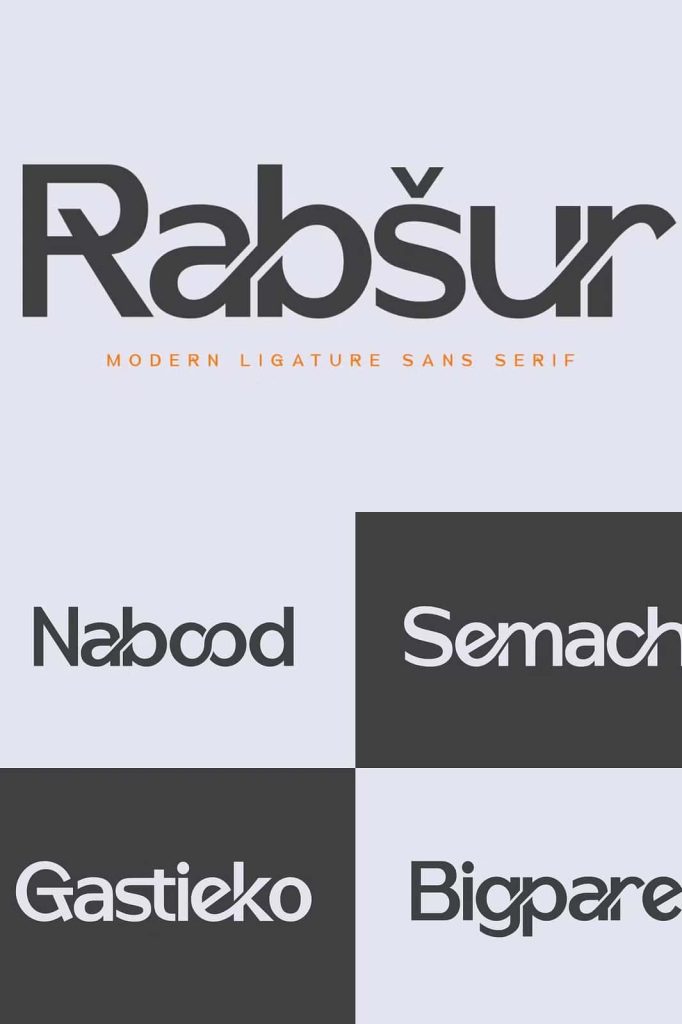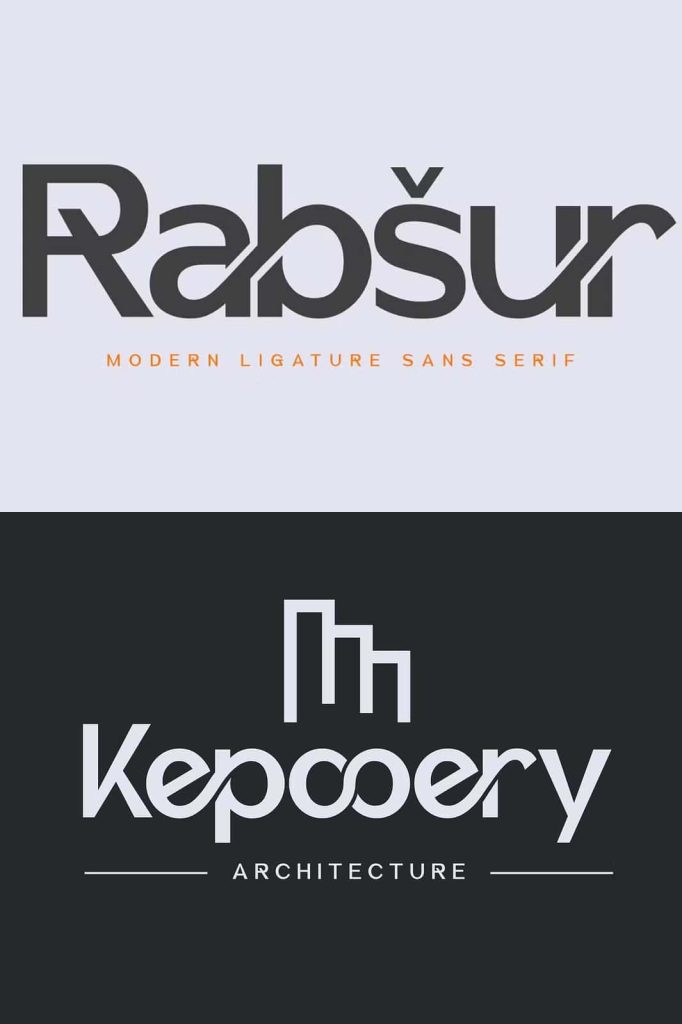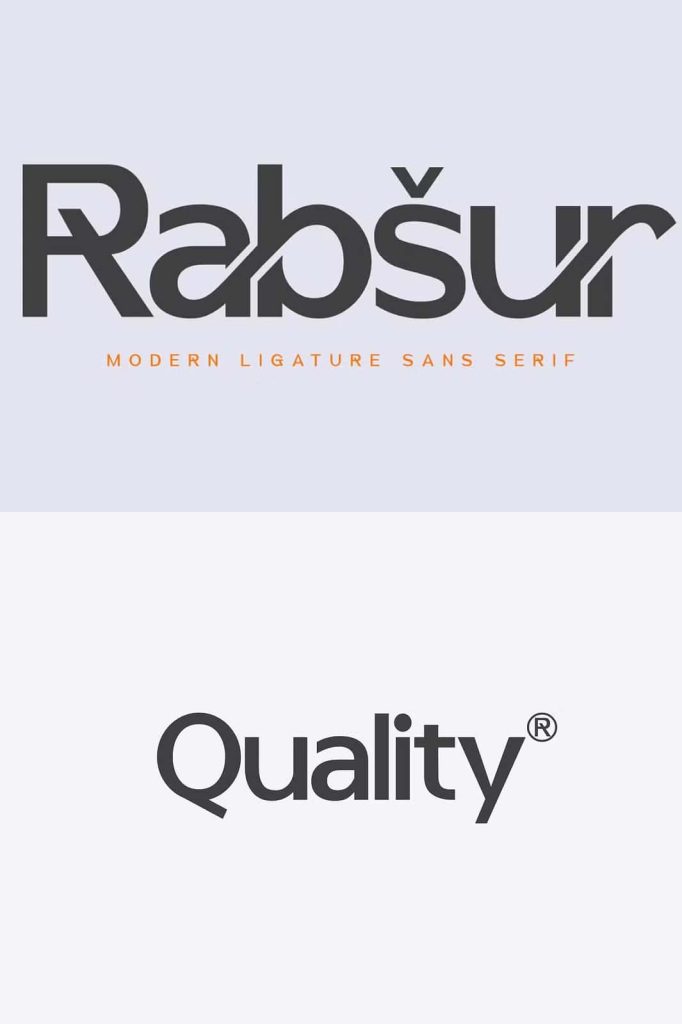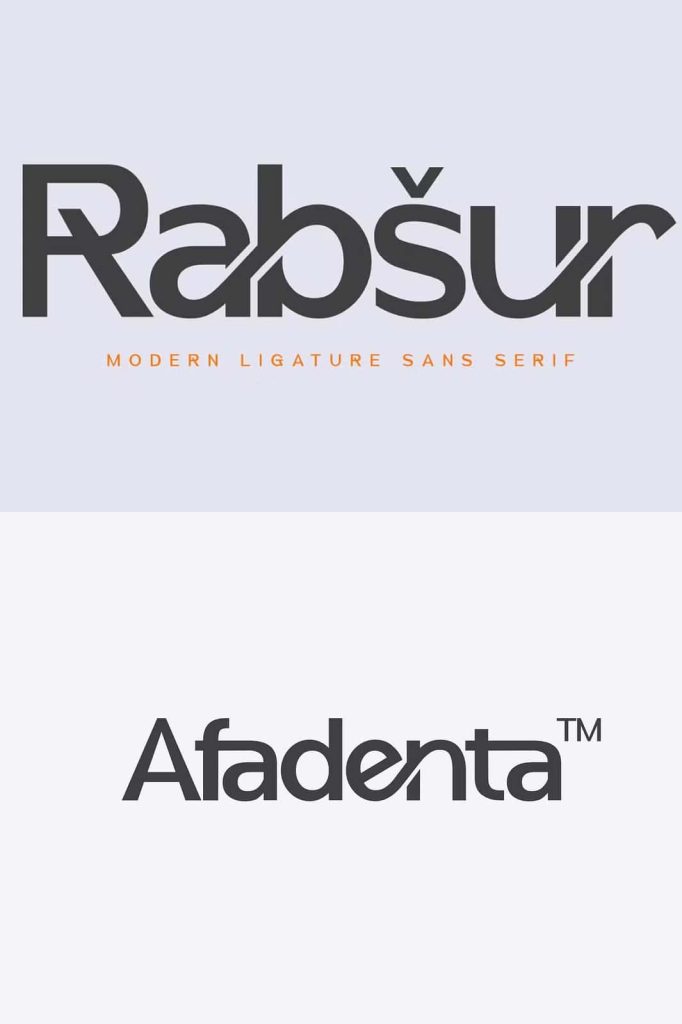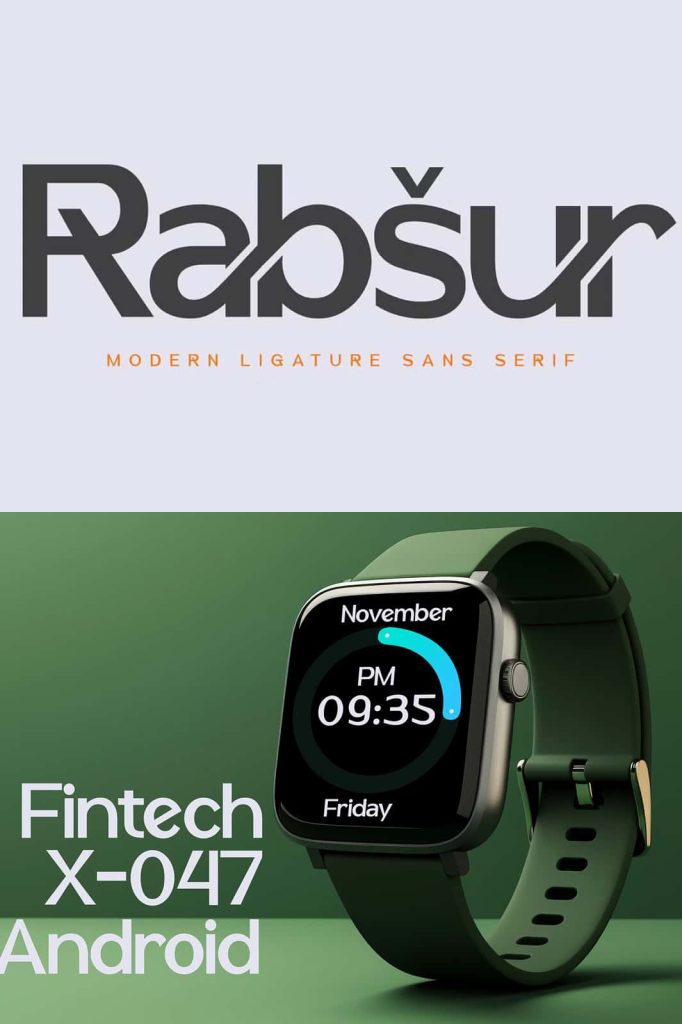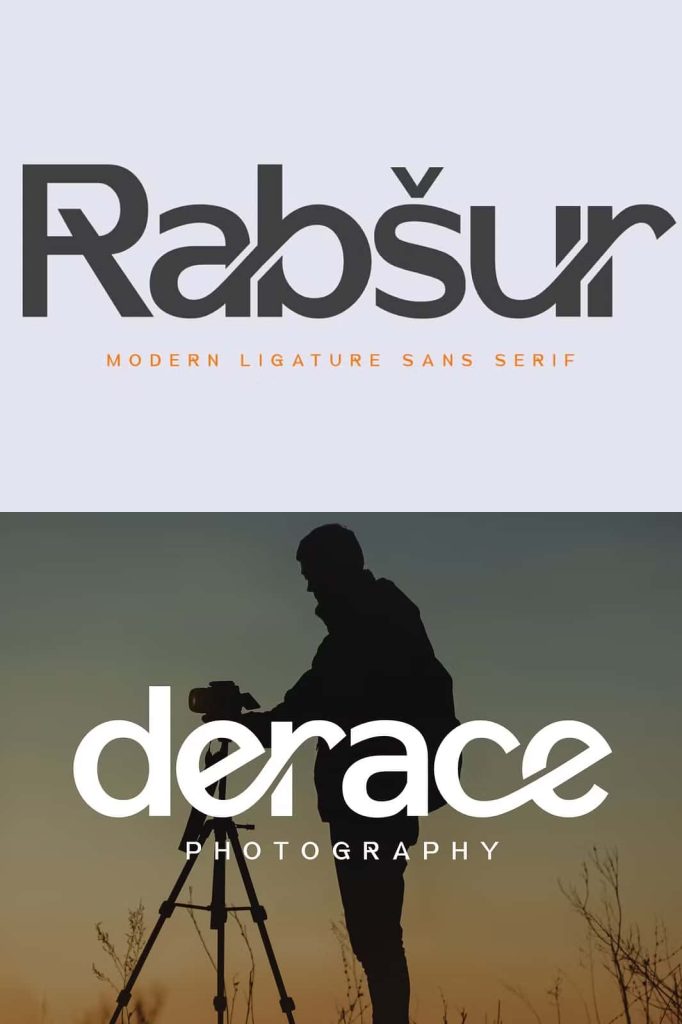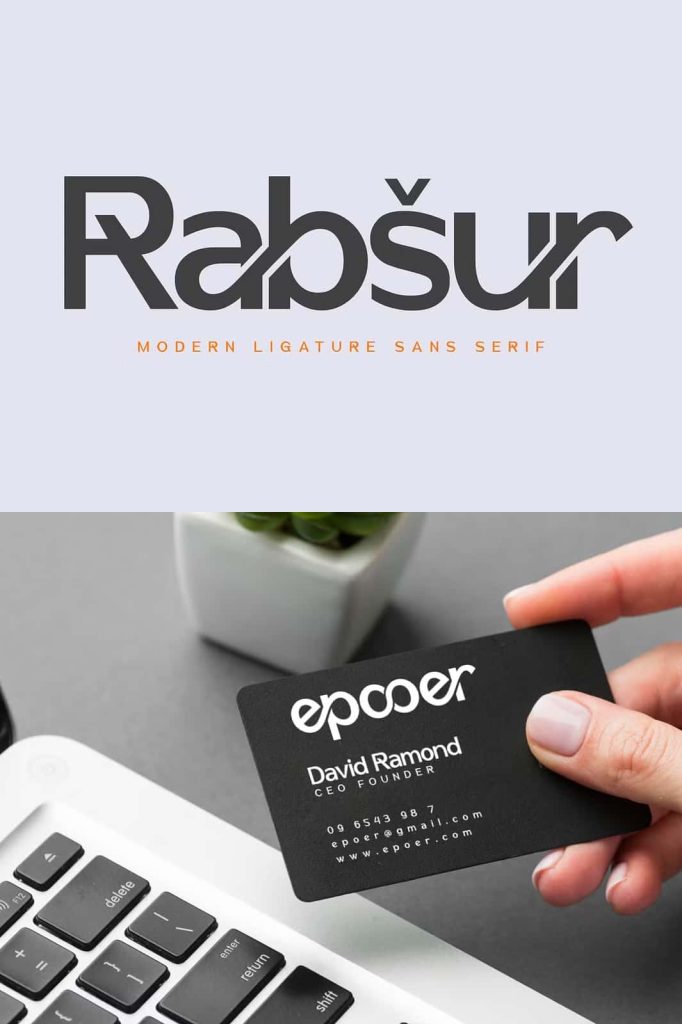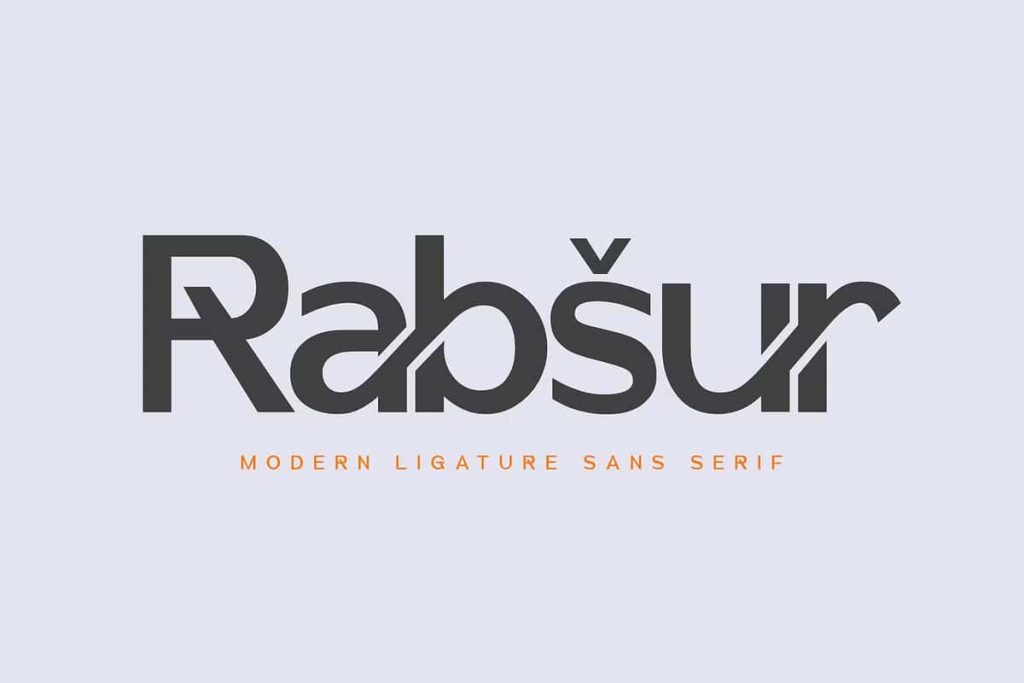
Rabsur – Modern Ligatures Sans
Introducing Rabsur, a bold and captivating font designed to elevate your brand’s presence. Perfect for crafting modern, attention-grabbing logos, Rabsur combines clean lines with dynamic aesthetics to ensure your brand stands out.